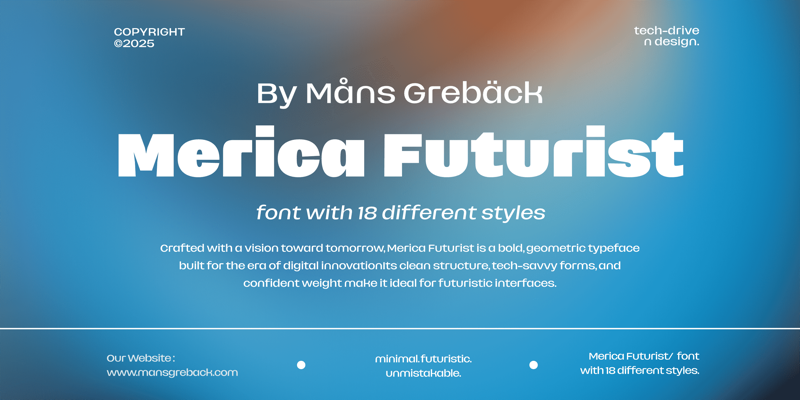
Merica Futurist
Måns Grebäck · Regular · Merica Futurist
Merica Futurist
Font familyMerica Futurist
CreatorMåns Grebäck
NOTE: This font is for PERSONAL USE ONLY! To purchase a commercial license, visit: https://www.mansgreback.com/product/merica-futurist Merica Futurist is a bold, geometric typeface created with a clear vision of tomorrow. Designed for the digital age, it combines a sleek, minimal architecture with tech-oriented curves and balanced proportions. Its confident stance and structured rhythm make it ideal for futuristic themes, delivering a streamlined visual impact that feels at home in advanced interfaces and modern branding. For questions, please visit https://mansgreback.com/faq